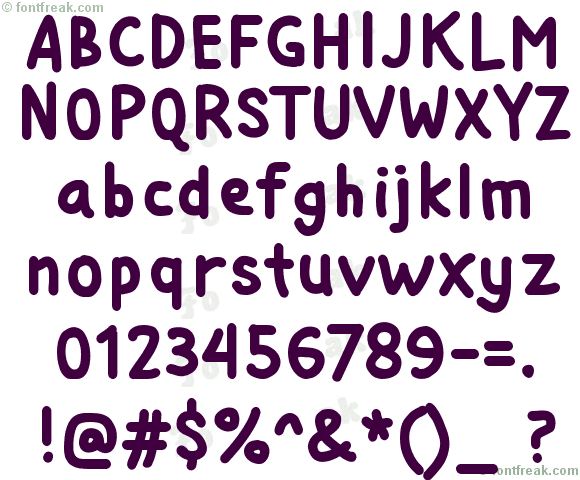
Si Kancil
Si Kancil, designed by Adien Gunarta, is a unique display font that embodies a playful, contemporary aesthetic. This font is characterized by its rounded strokes and friendly appearance, making it an excellent choice for various creative applications. The stroke weight is consistent, enhancing clarity and readability, while the ample spacing between characters allows for a comfortable reading experience. The slightly whimsical nature of the font adds a decorative element, making it stand out in any design project.
One of the best use cases for the Si Kancil font is in children's book covers, where its playful style captures the attention of young readers. Additionally, it works beautifully for restaurant menus, especially those focusing on casual dining, as it conveys a warm and inviting atmosphere. The font is also suitable for event flyers, such as birthday parties or community events, where a fun and approachable look is desired. Graphic designers may find it particularly useful for creating logos that require a friendly and modern touch.
The target audience for the Si Kancil font includes graphic designers, small business owners, and content creators looking to infuse their projects with personality. Its versatility makes it an appealing choice for anyone seeking to create engaging visual content.
What sets the Si Kancil font apart is its ability to balance playfulness with professionalism. This quality makes it a valuable asset for designers who want to evoke a sense of joy while maintaining clarity and elegance. With its free availability, users can easily access the Si Kancil font free download, allowing them to enhance their creative projects without any cost barriers. Embrace the charm of Si Kancil and let it elevate your next design endeavor.